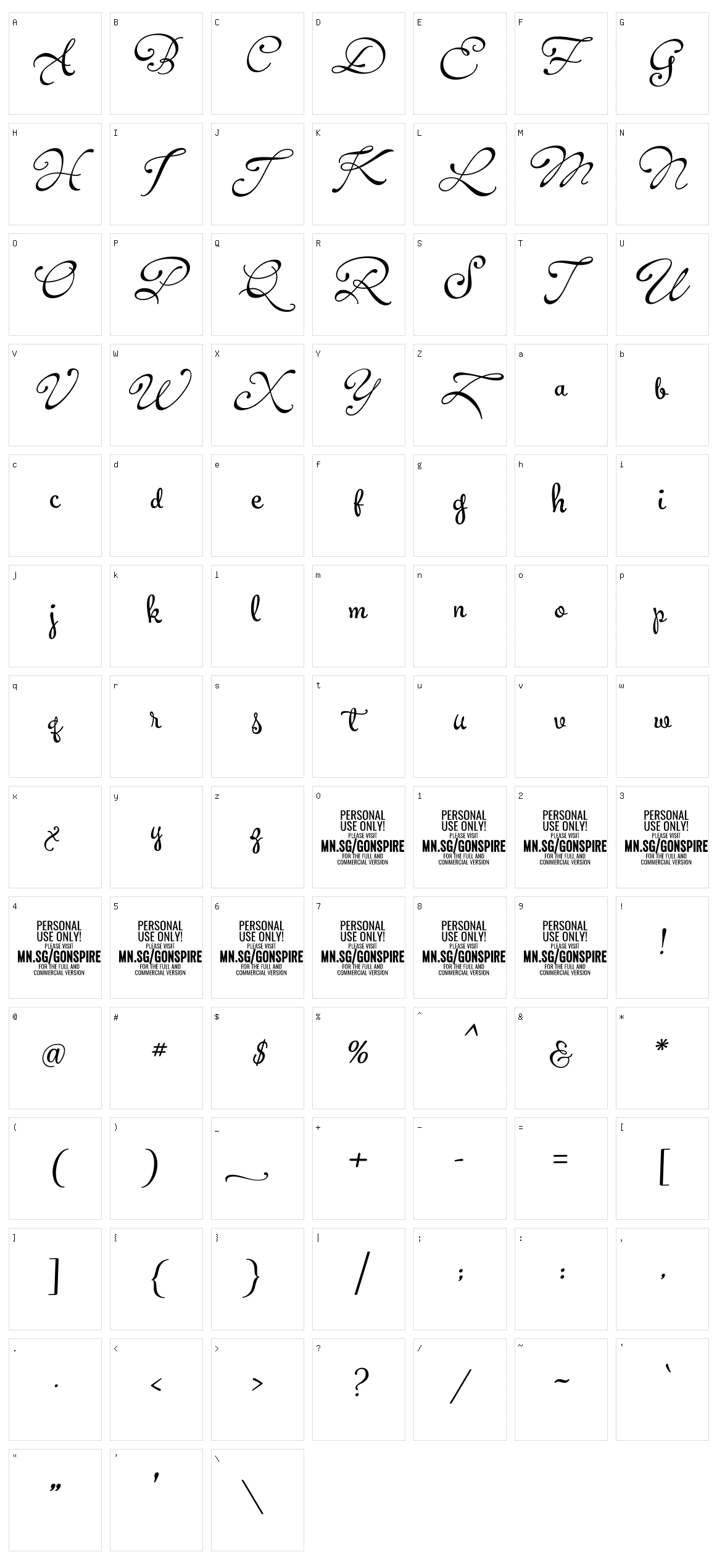
Gonspire Script is a swirly and swashy typeface that radiates beauty.
With elegant curves and swooshes, Gonspire Script is a decorative masterpiece for any creative project. Its lovely design is accentuated by intricate swashes and beautiful ornaments, making it an ideal choice for those looking to add a touch of elegance to their work.
Use underscore _ anywhere in a word for swashes.
Example: Love_rose
Use multiple underscore for different swashes.
Example: Wonder________woman
Gonspire Script is built with advanced OpenType functionality and has a guaranteed top-notch quality, containing stylistic and contextual alternates, ligatures, and more features; all to give you full control and customizability. It has extensive lingual support, covering all Latin-based languages, and includes all the characters and symbols you'll ever need.
Behind this elegant creation is Mans Greback. Known for his ability to infuse classical elements into modern designs, Greback has once again proven his versatility with Gonspire Script. His portfolio is an ever-growing collection of typographic brilliance, each typeface a unique story in itself.